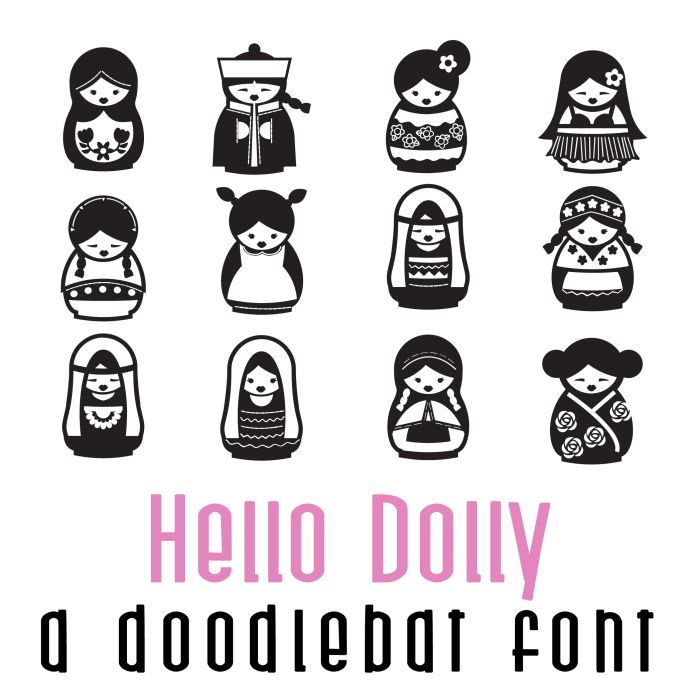
Hello Dolly Doodlebat Font
This doodlebat font features 26 Matryoshka dolls perfect for cards, crafts, gifts, decor, scrapbook pages, planner stickers, and more!